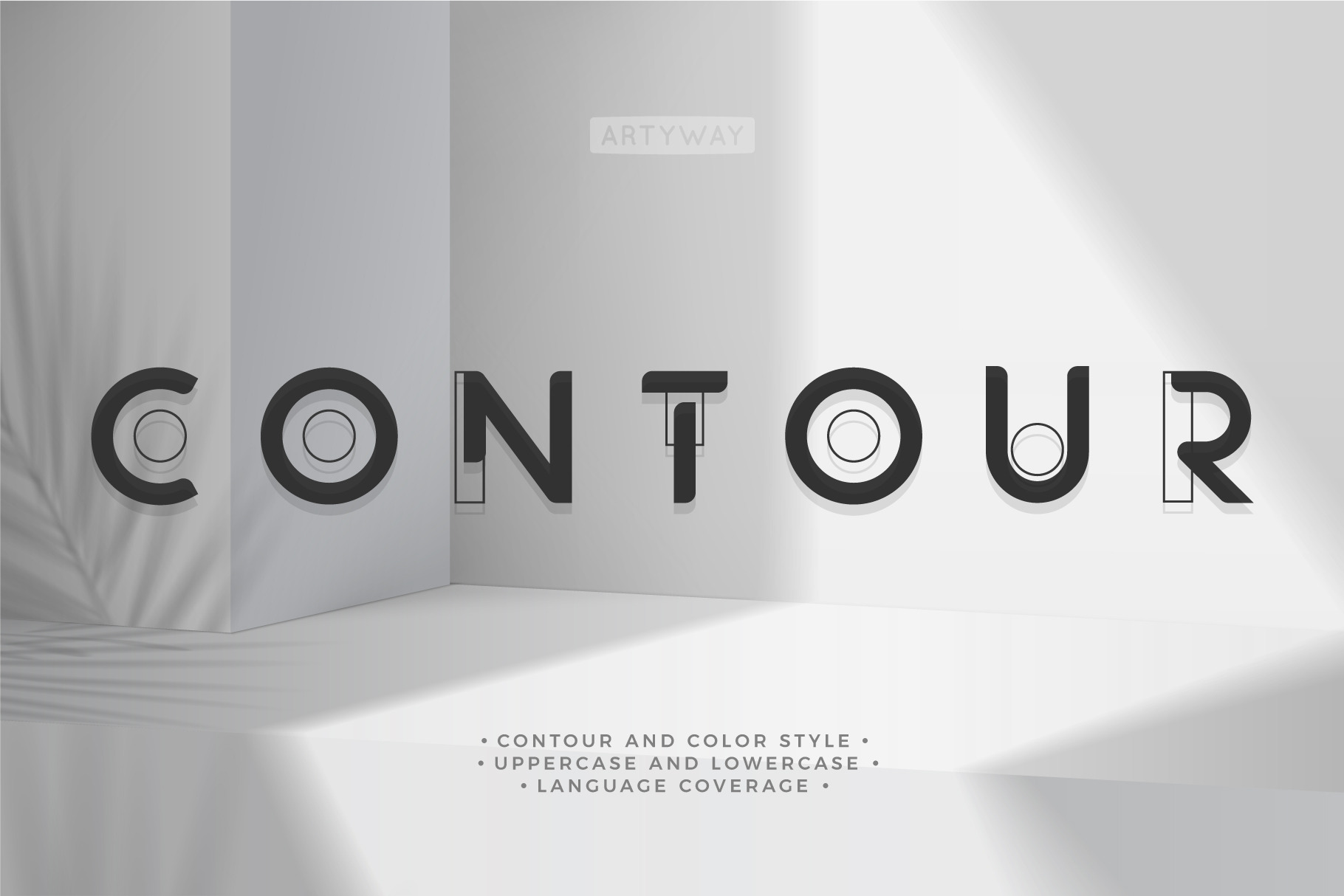
Contour Architecture Font
The Contour font is a futuristic letter set, inspired by architecture and future style.
Suitable for amazing projects: hud, web, movie or music, and especially logo and headline.
The Contour is an amazing futuristic font with linear space and color spot shapes.
- Uppercase and lowercase letters
- Multilingual coverage